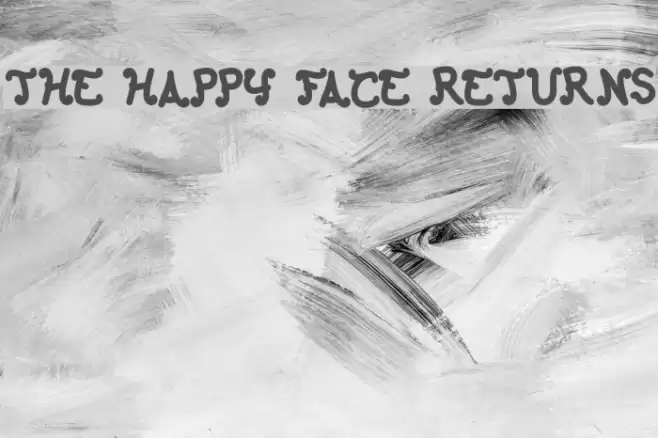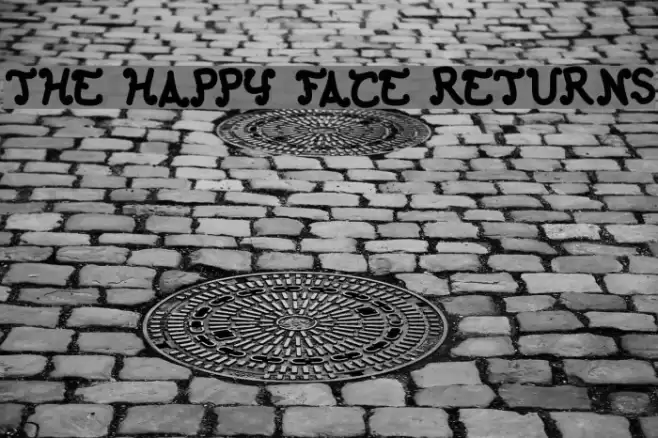
The Happy Face Returns Font
The Happy Face Returns Description
This playful and whimsical font features bold, rounded characters with a unique, bubbly appearance. Each letter is crafted with a sense of fun and creativity, making it ideal for projects that require a light-hearted and cheerful tone. The strokes are consistent in thickness, giving the font a uniform look while maintaining its playful character. The design includes both uppercase and lowercase letters, as well as numbers and a selection of special characters, all maintaining the same joyful style. The font's distinctive style makes it stand out, perfect for capturing attention and conveying a sense of joy and positivity.
A playful, bubbly font with bold, rounded characters from Uncategorized fonts.
- Proposed Projects: Ideal for children's books, party invitations, playful branding, and any project needing a cheerful and fun typeface.
- Overall Style: Playful